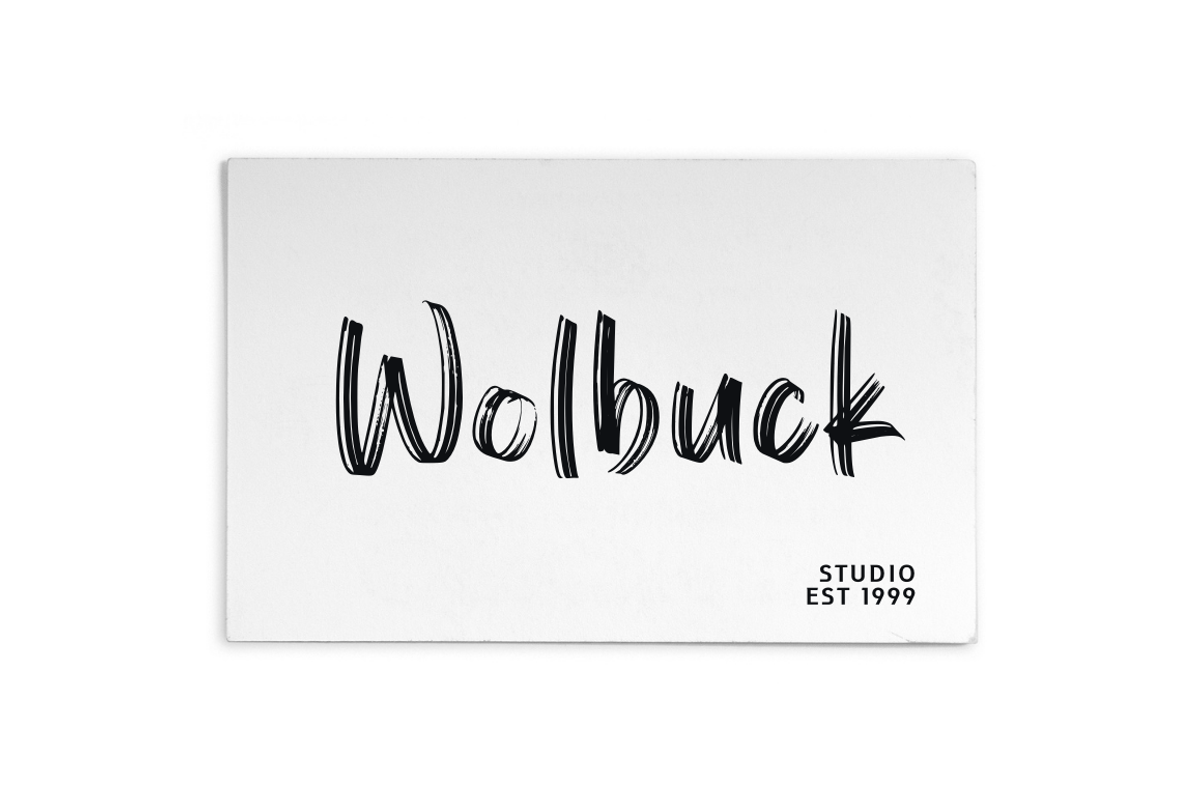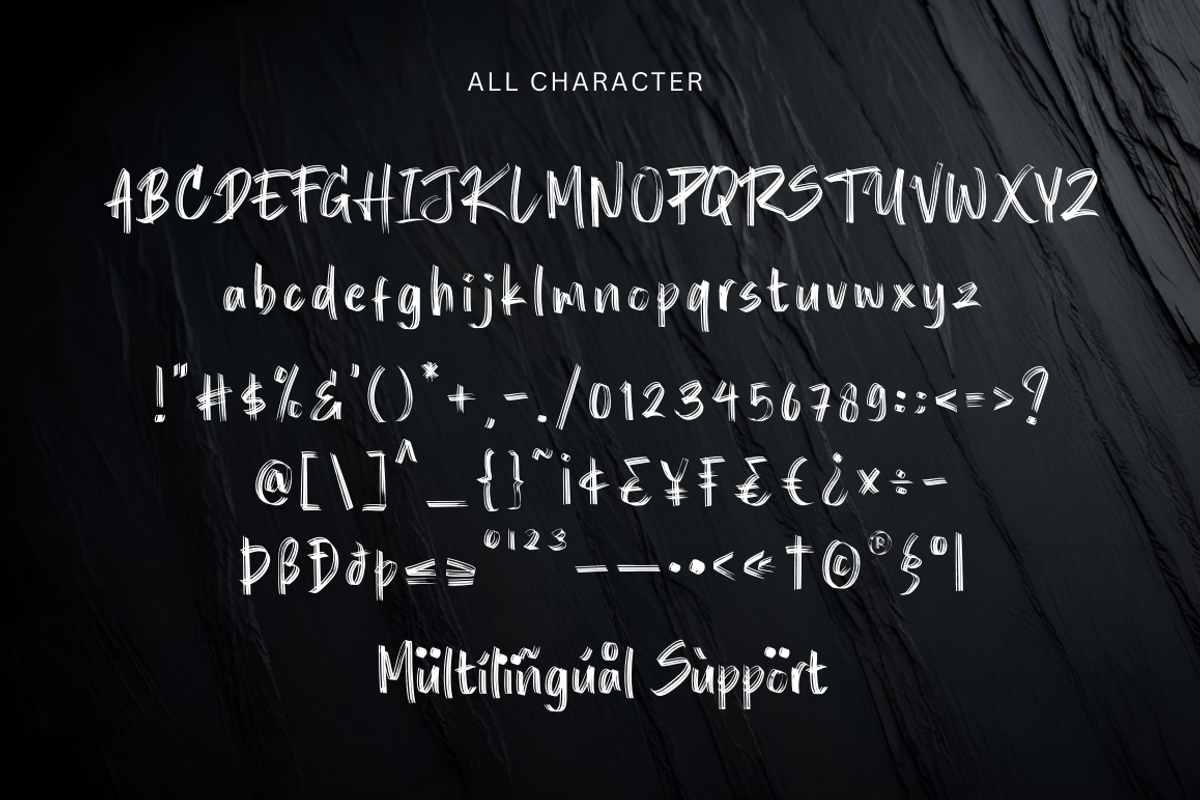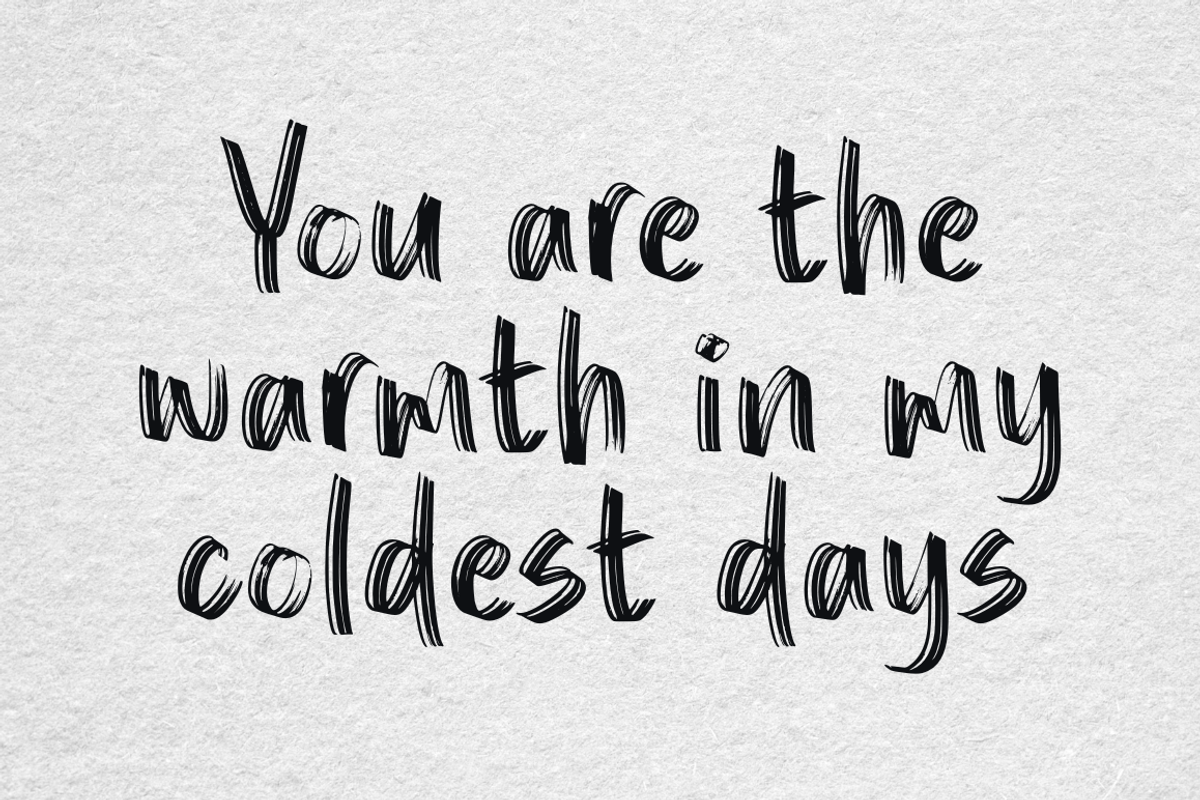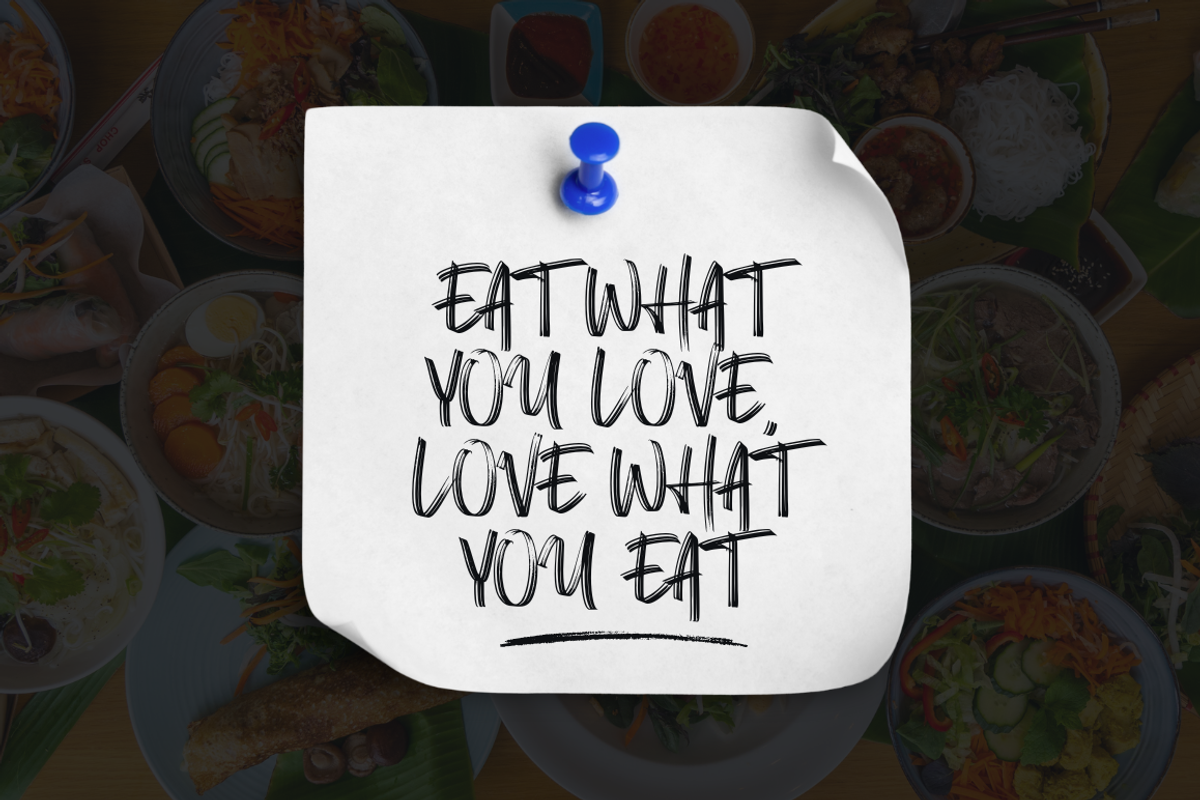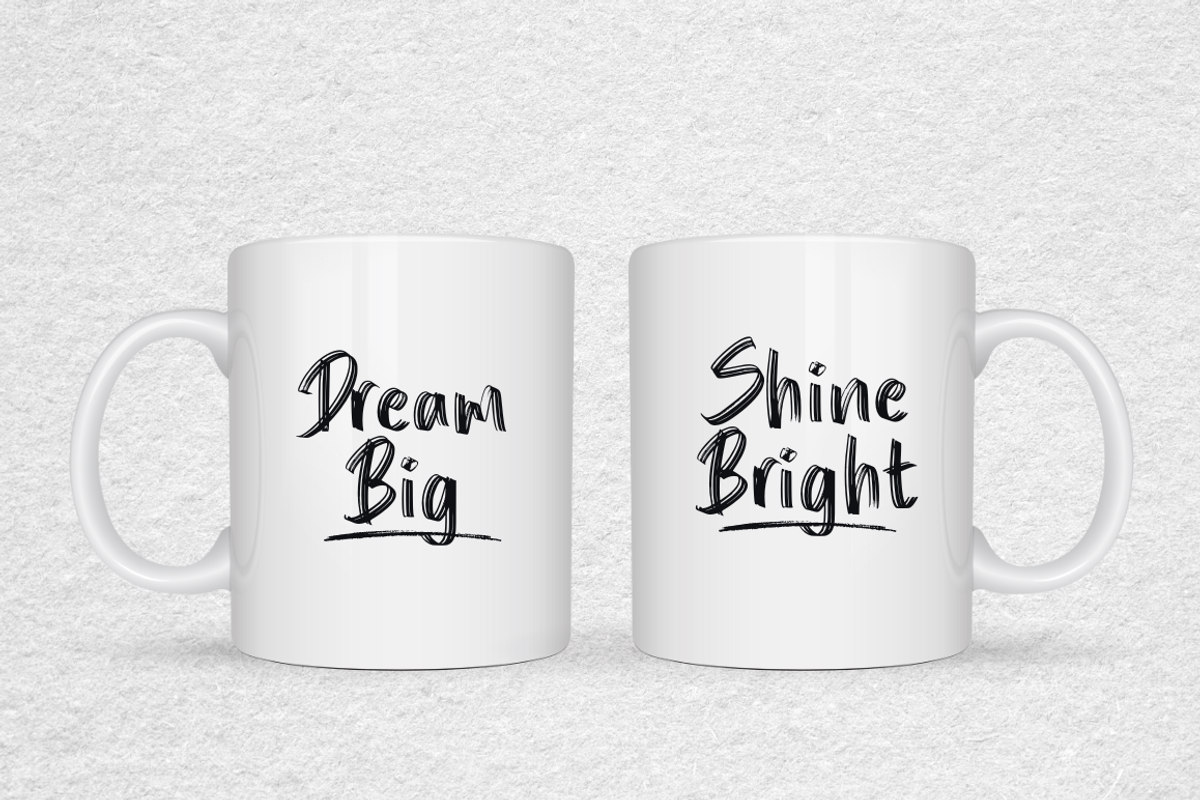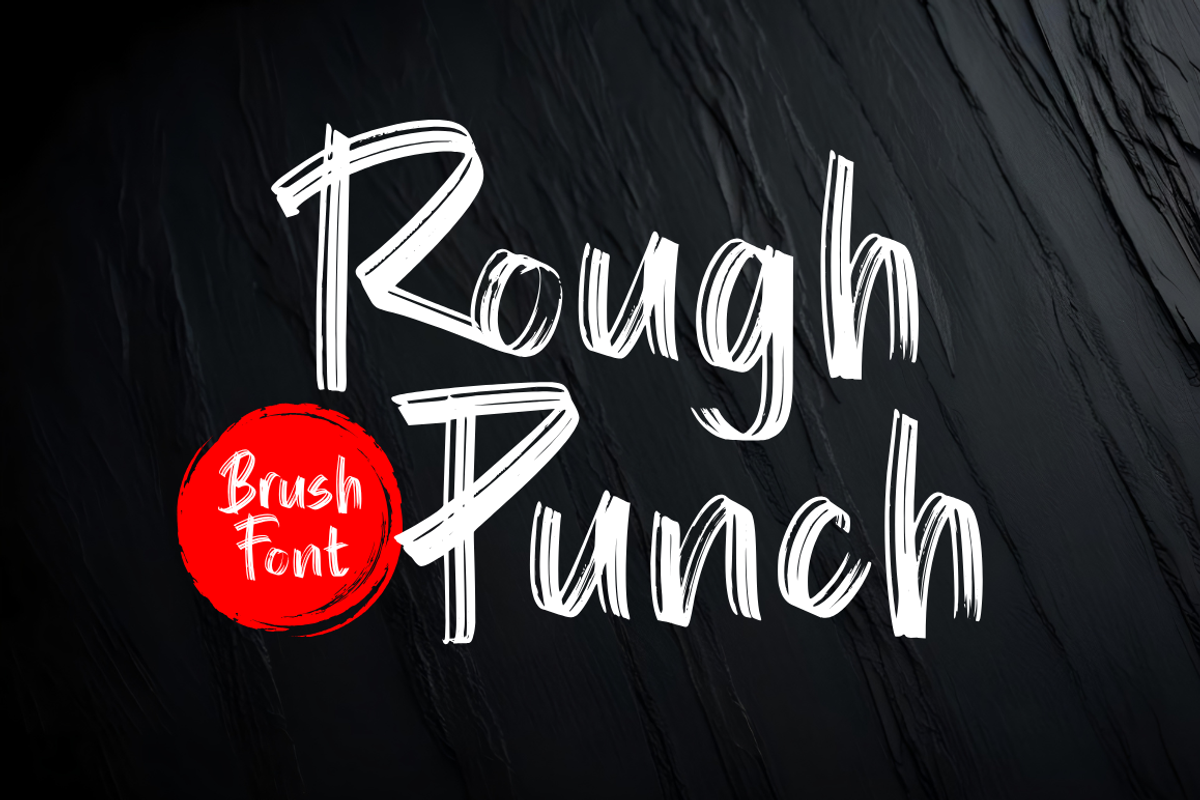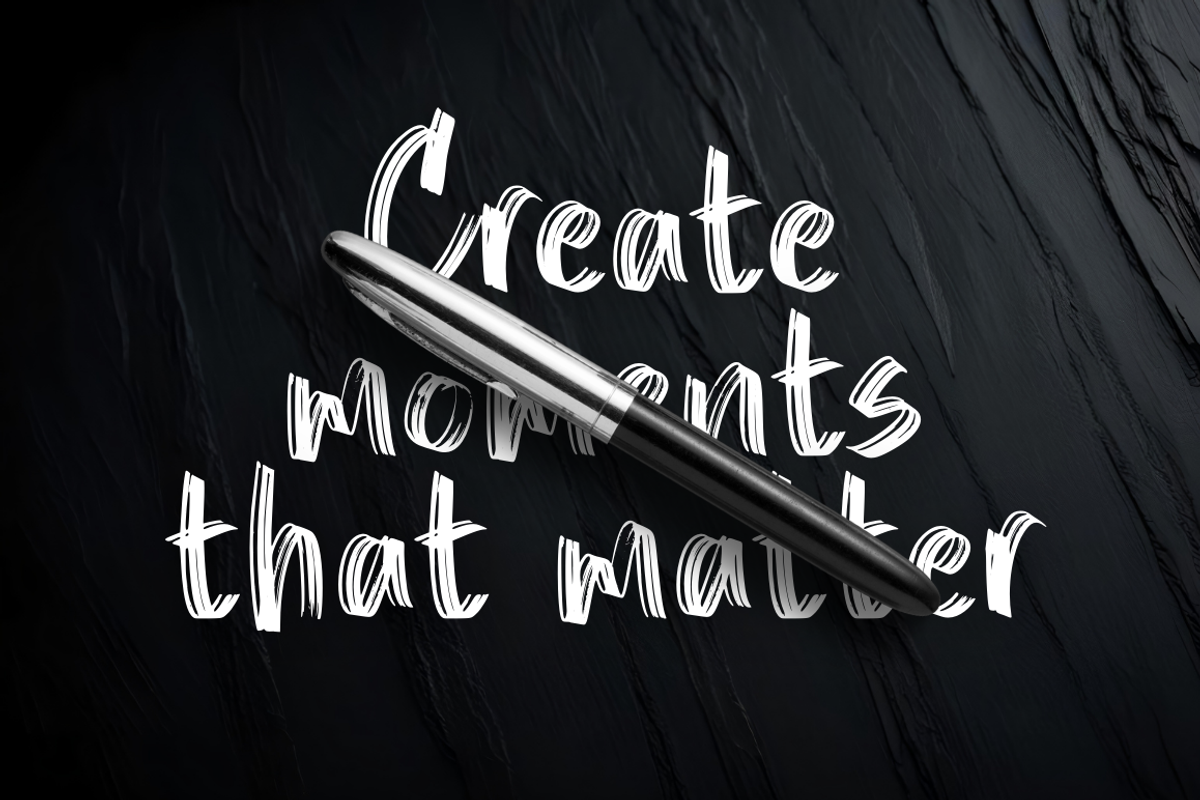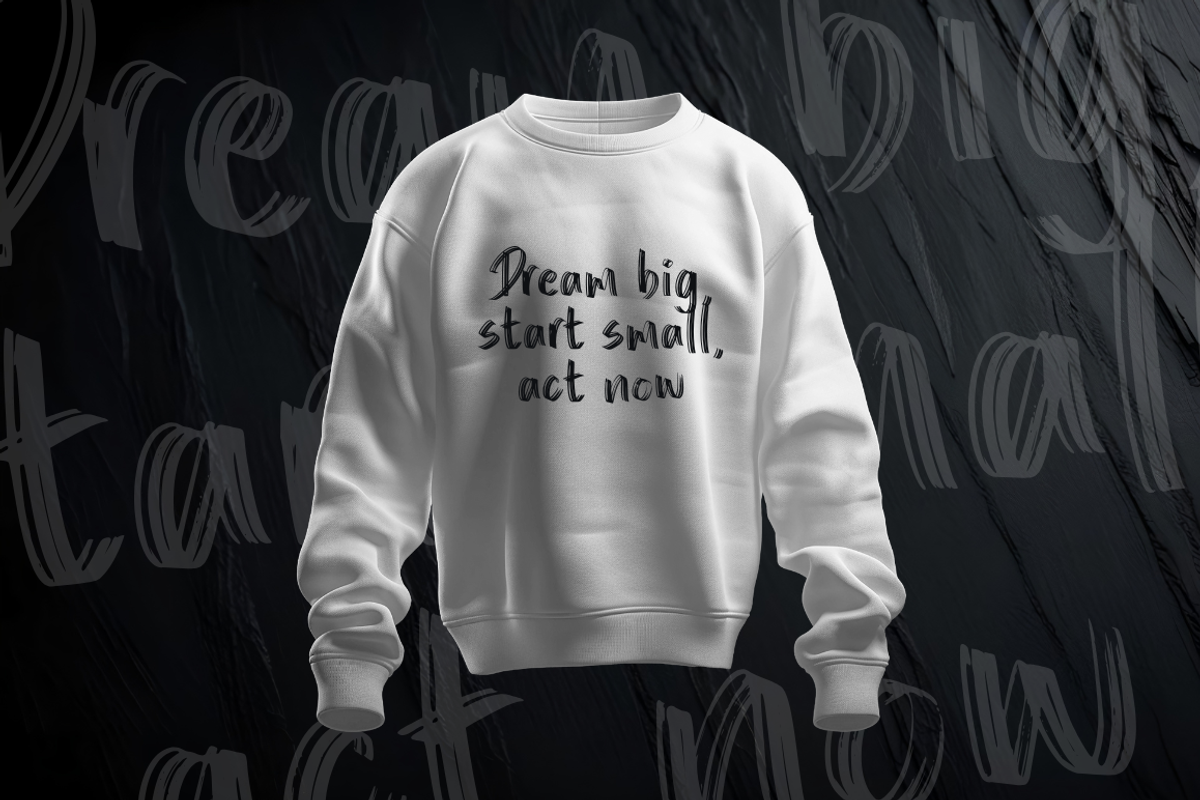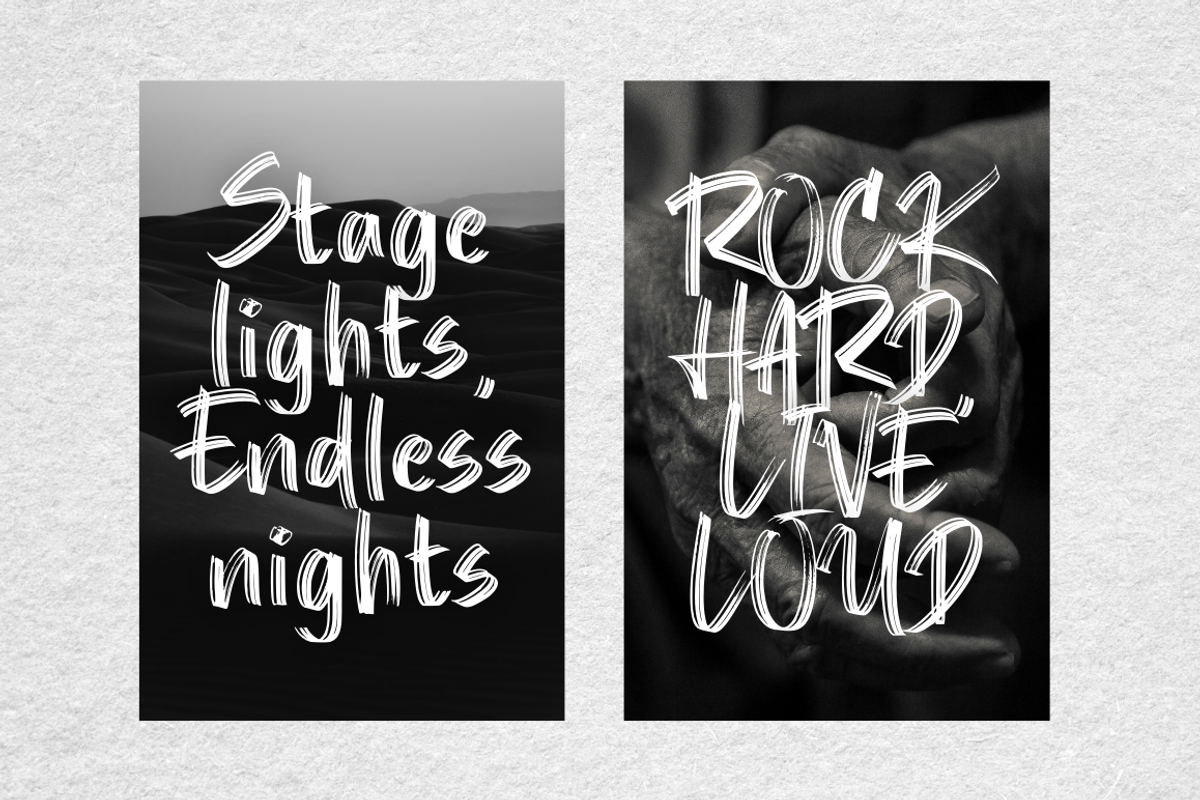
Rough Punch - Handbrush Font
Rough Punch is a bold and energetic handbrush font that delivers raw power and dynamic strokes. Its rugged texture and expressive brushwork make it perfect for posters, logos, branding, packaging, apparel, and any design that needs a strong and rebellious touch. Whether you're creating street-style artwork or bold advertising, Rough Punch packs a punch of personality and attitude.
- Numerals & punctuation